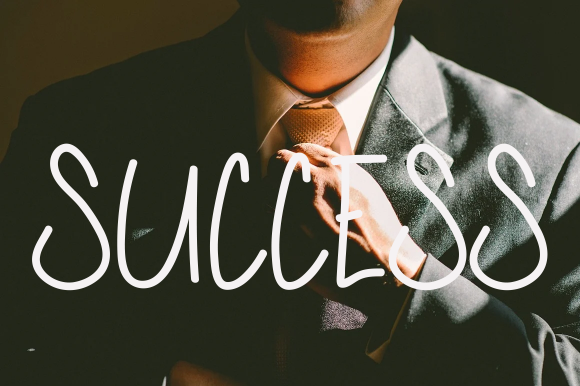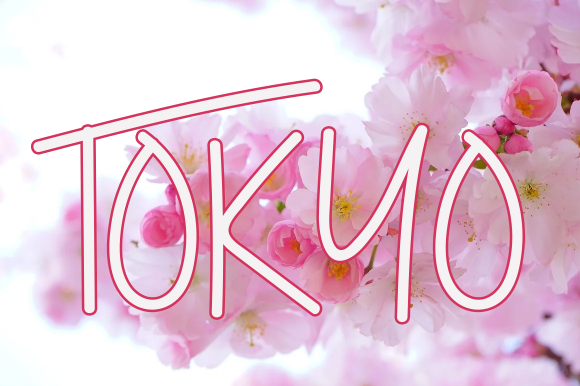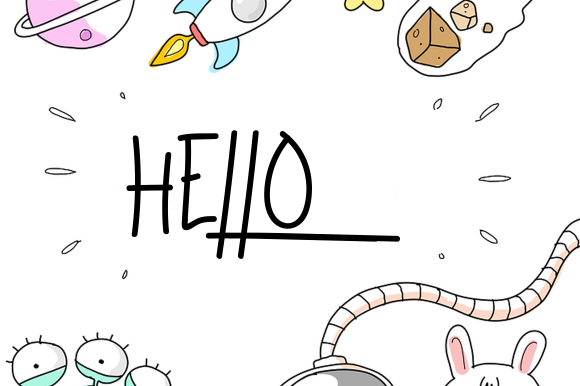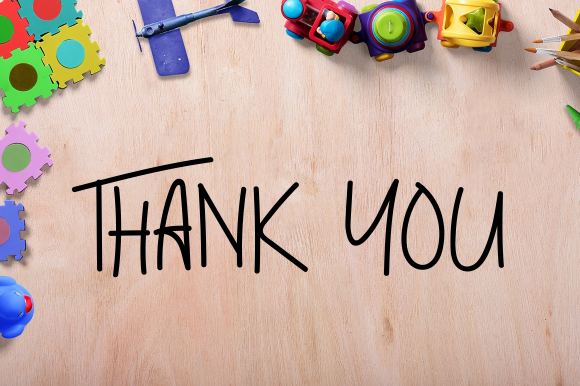
About Greenhouse Font
Greenhouse is a casual, natural and readable handwritten font. Simple but with a strong visual effect, this font will instantly make your creation more appealing than any others.